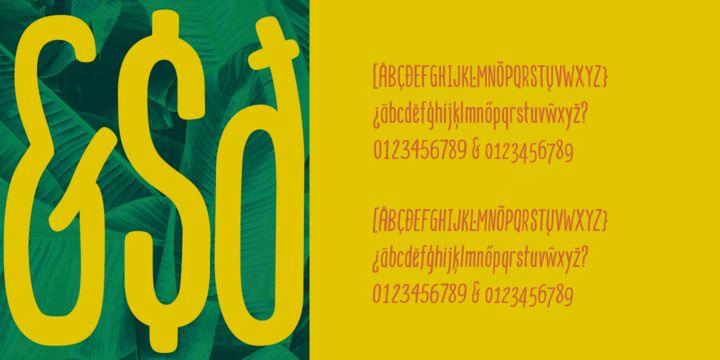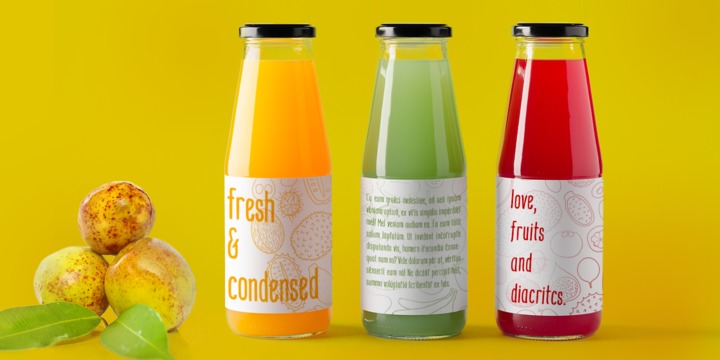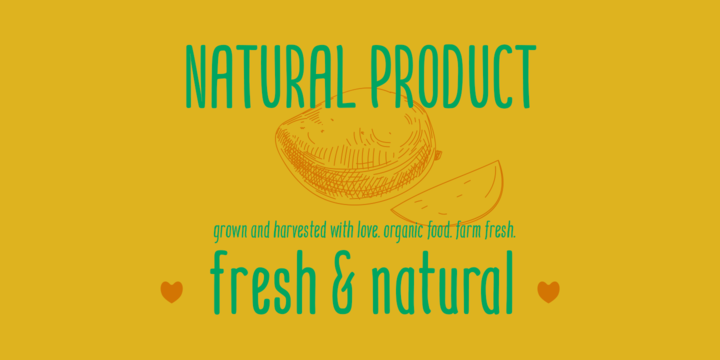
Mangaba Pro Font Family
Mangaba is a condensed font designed to create a hand-drawn feel for texts in small spaces. It is great for packaging and labels as well as titles and other short texts.
It has low contrast and high x-height. Blend well with other hand drawn, cursive and san serif fonts.
Includes Latin characters, punctuation, diacritics and old-style numbers.